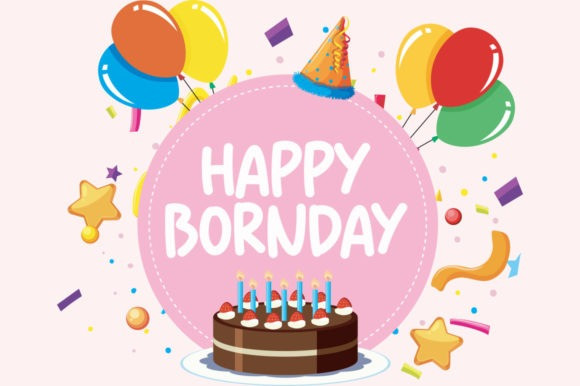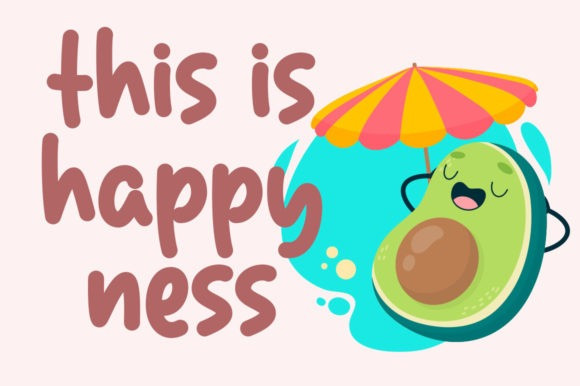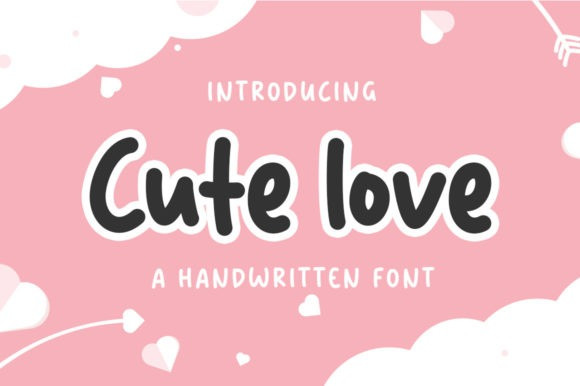
Cute Love Font
Cute Love Font is a lovely and simple-lettered handwritten font, perfect for all the chalkboard quotes and teaching materials you wish to create! Its authentic look will add a personal and realistic feel to your designs.